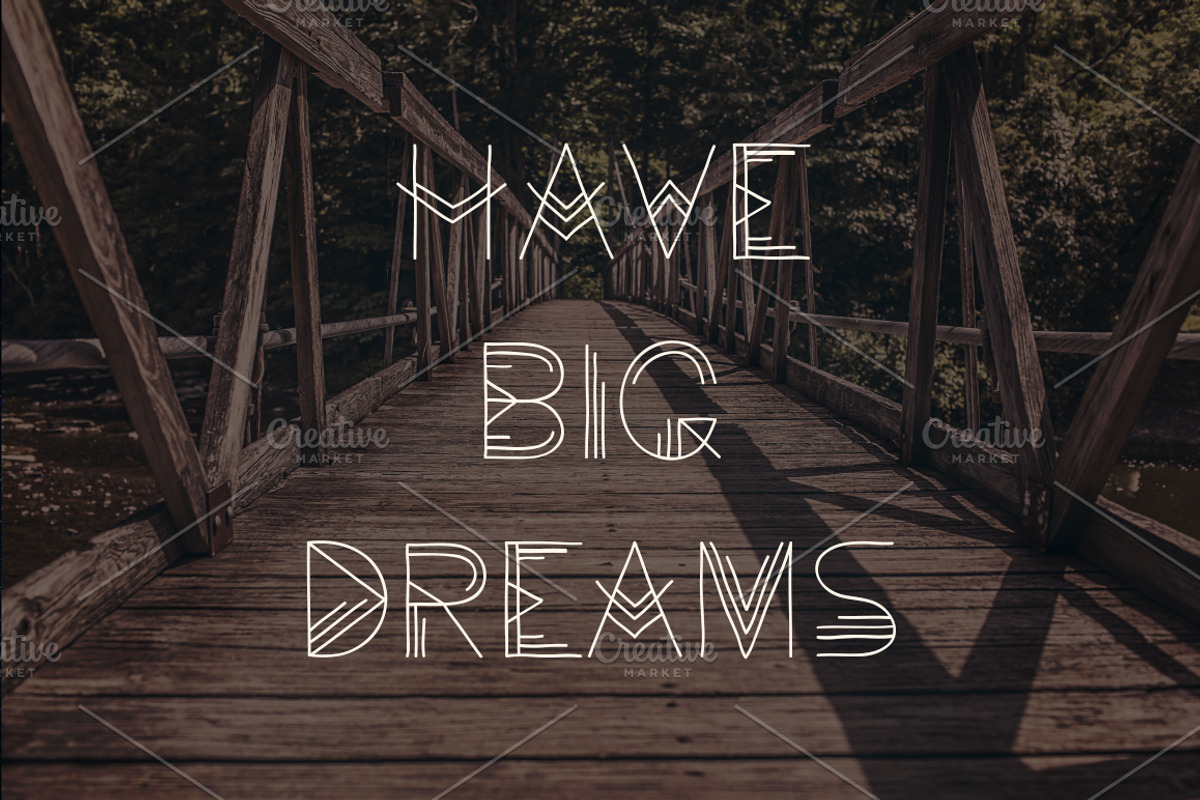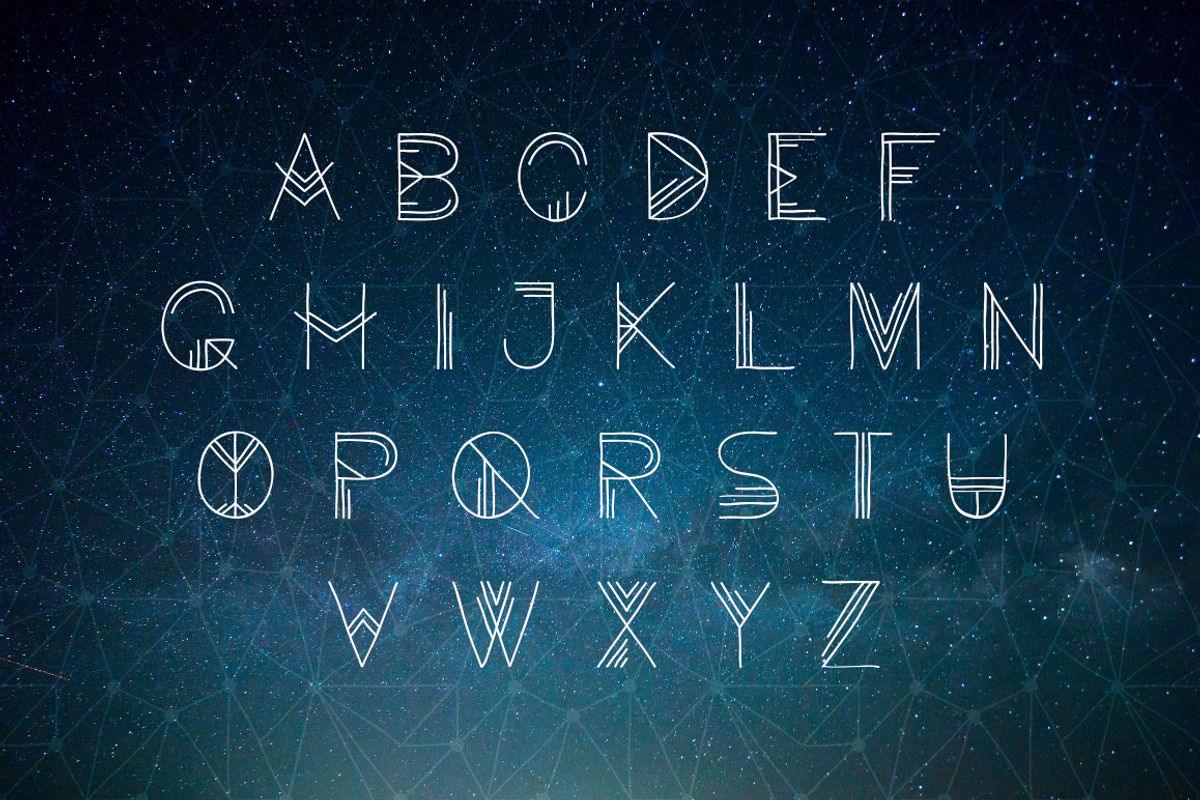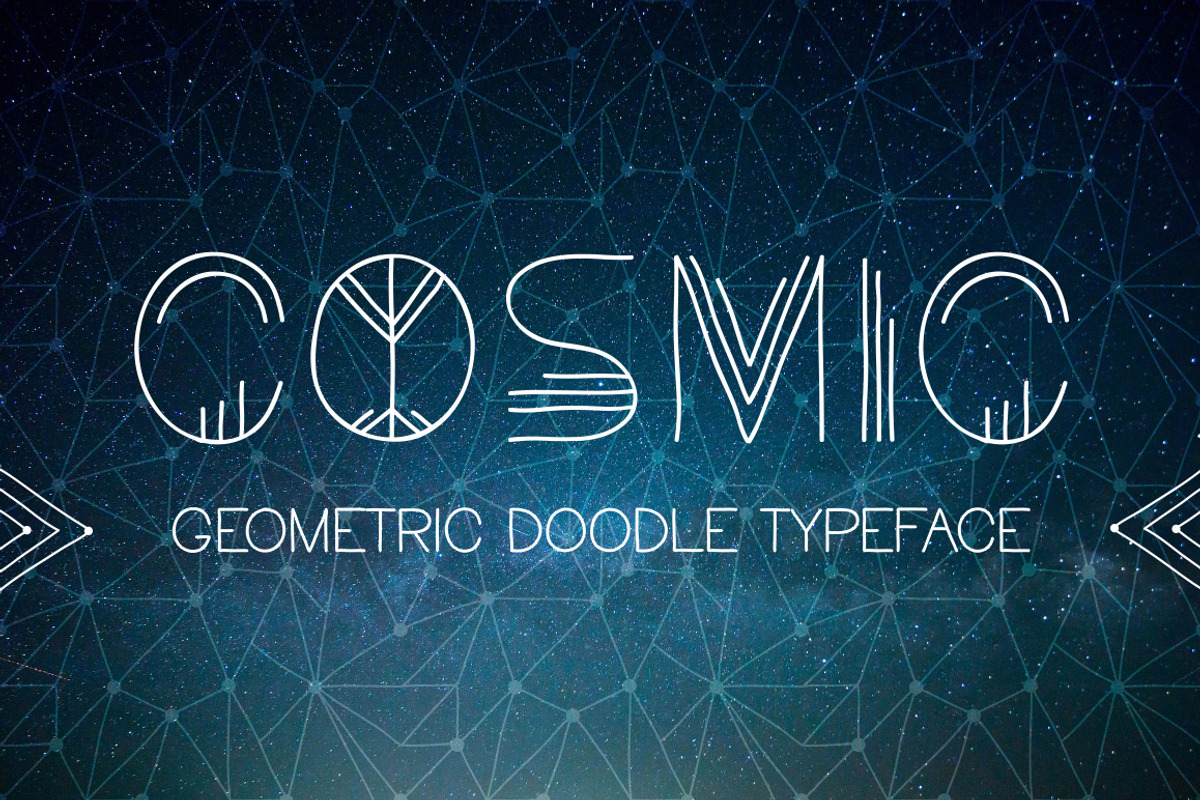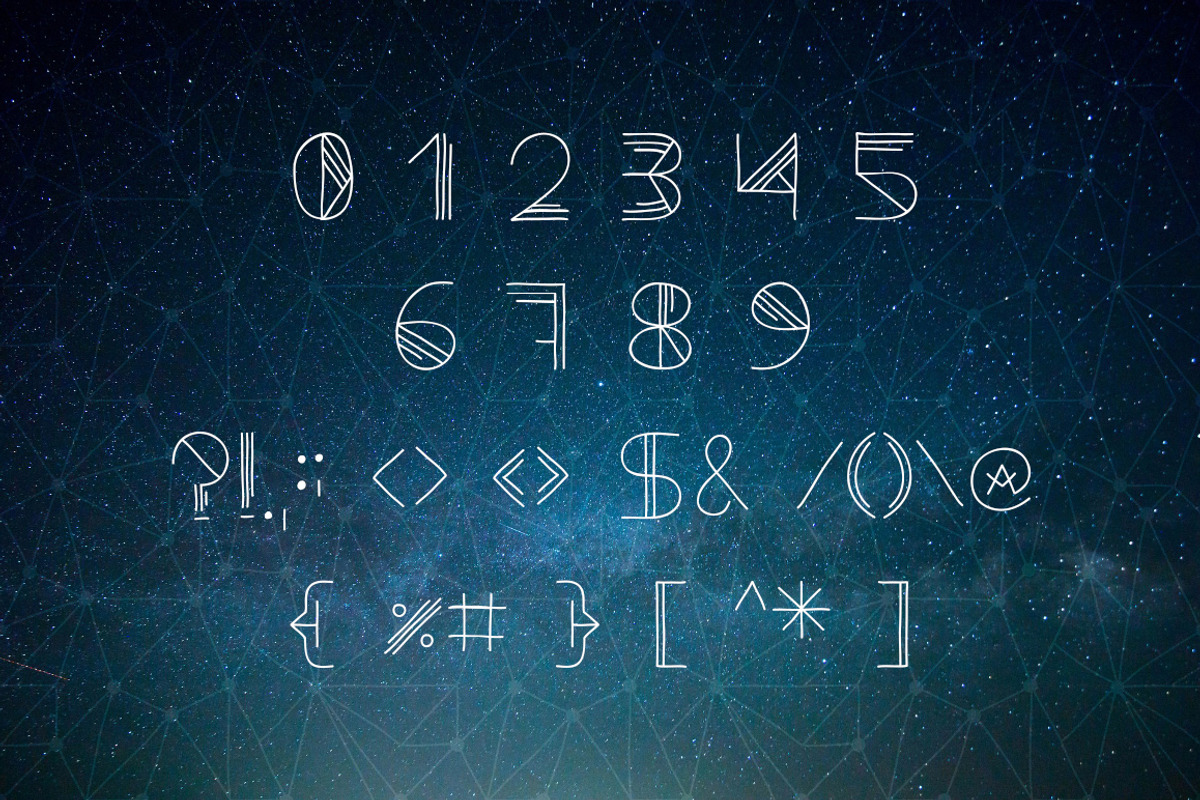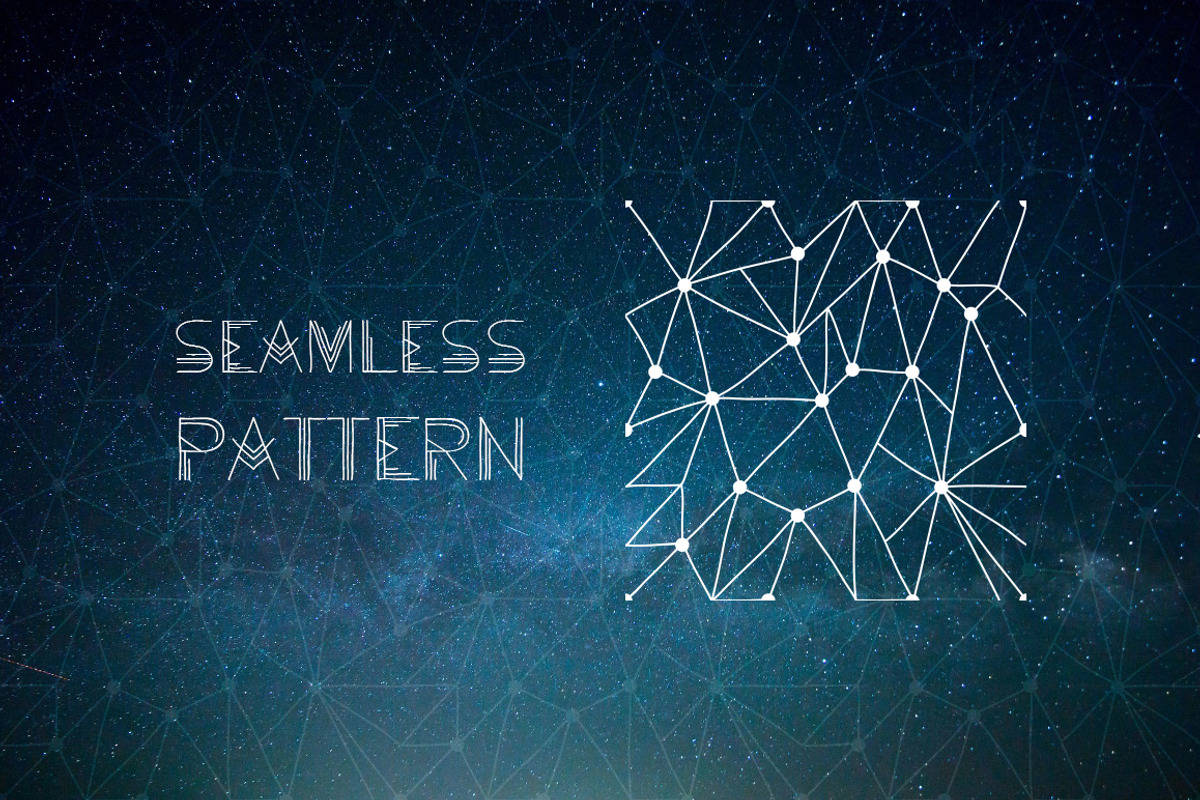
Cosmic. Doodle Font
Cosmic is a handmade geometric font. You are welcome to use it for various purposes: logo, posters, greeting cards, headings, t-shirt, letterhead, signage, labels etc.